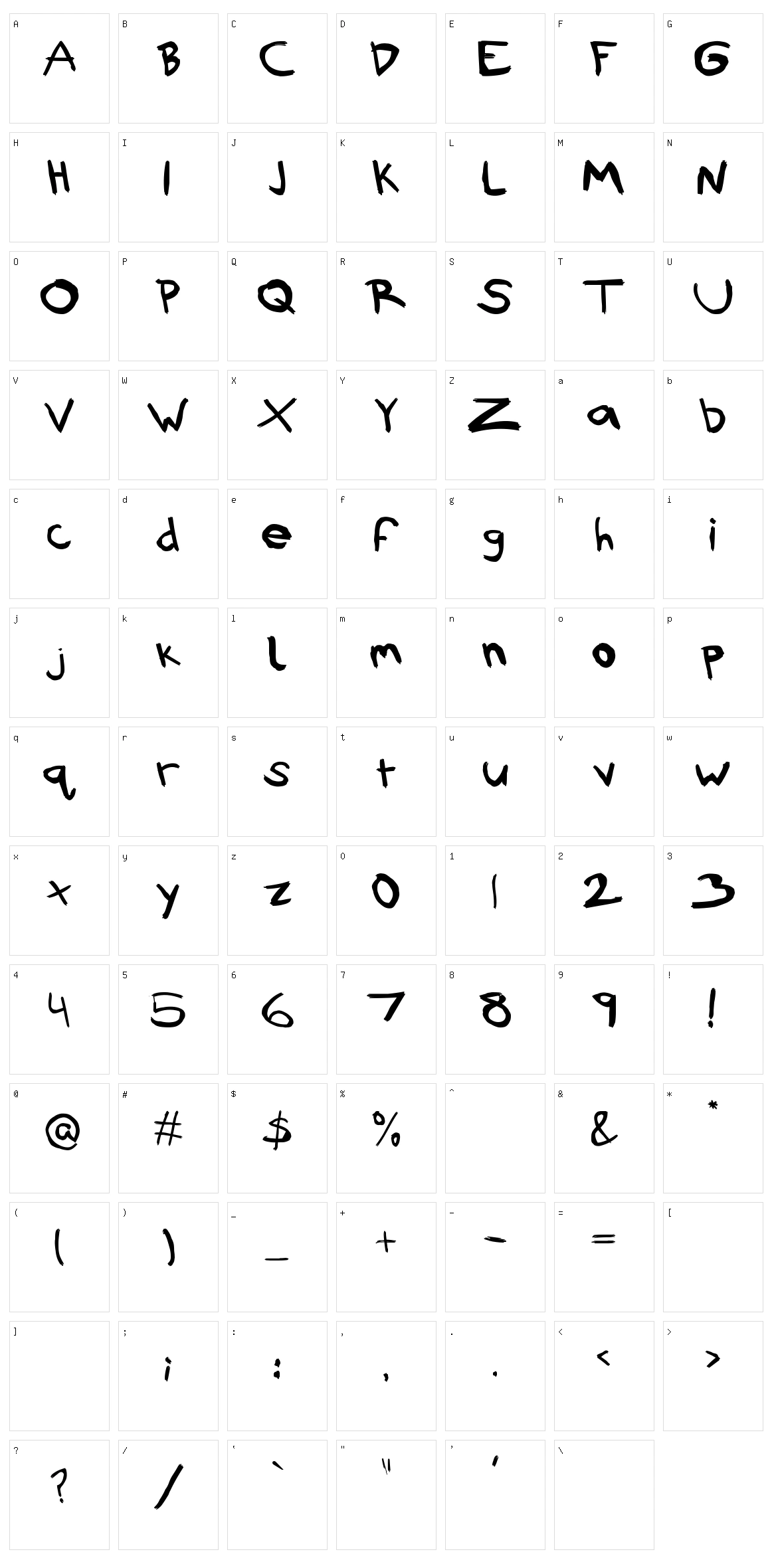
The free font Rubbish is carefully designed by Nathan Thomson, showcasing a thoughtful balance of creativity and usability and falls under the Script font style. When you download the ZIP file, it contains only 27.85 KB of font files, making it lightweight and quick to download. Please review the license details below to understand permitted usage and distribution rights. If license information is not available, we recommend using this font for personal projects only or contacting the author directly for commercial usage permissions.